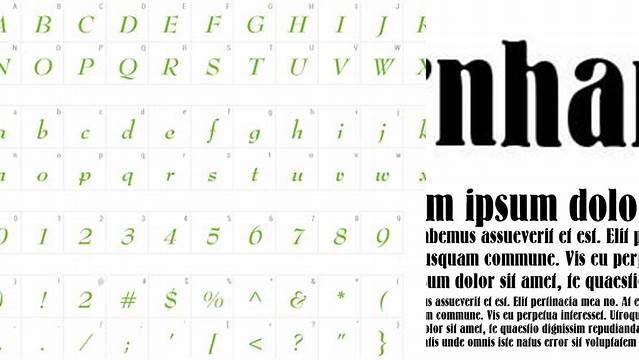
Get Bernhard Font: Free Download & Style Guide
Hey design enthusiasts! Today, we're diving headfirst into the world of typography, and we're starting with a real gem: the Bernhard Modern font. If you're looking to add a touch of elegance, sophistication, and a dash of vintage charm to your projects, then you're in the right place. I'm going to break down everything you need to know about the Bernhard Modern bold italic font free download, from its history and characteristics to where you can snag it and how to use it like a pro. Get ready to unleash your inner typographer, guys!
Bernhard Modern Font: A Timeless Classic
The Bernhard Modern font isn't just another font; it's a statement. It whispers of a bygone era, of art deco glamour and timeless design. It's a font that commands attention, perfect for headlines, titles, and anywhere you want to make a bold impression. This font family is a work of art, meticulously crafted to exude a sense of refinement. It is a serif typeface that has a clean appearance and a strong, elegant design. This typeface, which was created by Lucian Bernhard in 1912, has a rich history and continues to be a popular option for graphic designers looking for a touch of sophistication.
This font has been a staple in the design world, gracing everything from posters and advertisements to book covers and logos. Its versatility is one of its key strengths. It's a font that can be dressed up or down, making it suitable for a wide range of projects. Whether you're working on a website, a print project, or a social media campaign, Bernhard Modern can help you create a visually stunning and impactful design. Its timeless appeal ensures that your designs will remain stylish for years to come. The bold and italic variations add to its personality, providing additional options for emphasizing specific text or creating visual interest. The serifs, the small strokes at the end of each letter, give Bernhard Modern a distinctive and elegant look. It is a serif font, meaning it has small strokes, or serifs, at the ends of the letters. These serifs add a touch of elegance and sophistication to the font. The letterforms are carefully designed to create a harmonious and balanced appearance. When you choose Bernhard Modern, you're not just choosing a font; you're choosing a piece of design history.
Exploring the Features of Bernhard Modern Font
Let's get up close and personal with the Bernhard Modern font and explore what makes it so special. Its bold and italic variations add to its personality, providing additional options for emphasizing specific text or creating visual interest. The serifs, the small strokes at the end of each letter, give Bernhard Modern a distinctive and elegant look. This font has a distinct personality that makes it ideal for conveying a message of sophistication and refinement. The balance between its bold strokes and delicate serifs creates a visually pleasing aesthetic. The font's letterforms have been carefully designed to ensure legibility while retaining their elegance, making it a great choice for titles, headlines, and short text. The Bernhard Modern font family provides several weights and styles, giving designers versatility. The bold weight is perfect for making a strong statement. The italic style adds a dynamic touch, and the combination of bold and italic creates visual interest. It's designed to be highly legible and is suitable for various applications. The design of the font has evolved over time, with several variations and versions available. The font's features include its timeless appeal, versatility, and legibility. It's a choice for any project that requires a touch of vintage charm and modern elegance. From logos to website headlines, this font can instantly elevate your design. The classic letterforms offer readability. The bold and italic versions increase the design possibilities. With its rich heritage and modern aesthetic, Bernhard Modern continues to inspire designers worldwide.
Understanding Bernhard Modern's Distinctive Styles
The Bernhard Modern font family includes a variety of styles. Understanding these styles allows you to choose the best option for your project. The bold style makes a strong visual impact, making it perfect for headlines. The italic style adds a dynamic touch, and the bold italic style combines these for maximum impact. Each style adds a unique flavor to your design. The original version of Bernhard Modern features a clean and elegant design that is suitable for different applications. Other variations of the font include lighter and heavier weights and condensed versions that can be used when space is limited. Each style has a distinct personality, and you can use them together to create an amazing design. You may use it for headings, logos, and other design components that require visual emphasis. Choosing the right style can enhance the readability and aesthetic appeal of your work. Experimenting with different styles will help you find the perfect match for your project. By understanding the features of each style, you will be able to make informed decisions. It helps you to utilize the full potential of the Bernhard Modern font family. Choosing the correct style can make a difference between a good design and a remarkable one. The bold and italic styles can give a unique touch to your design. The classic letterforms and modern aesthetic ensure that the Bernhard Modern font remains a popular choice for designers.